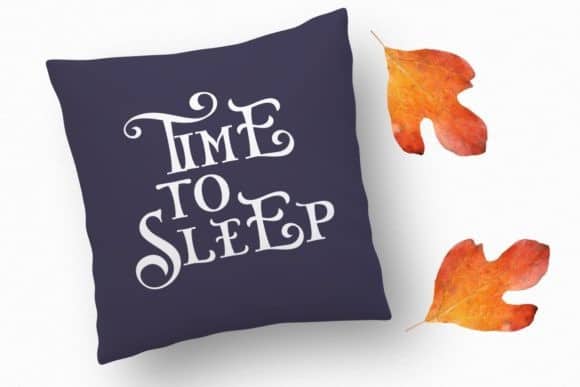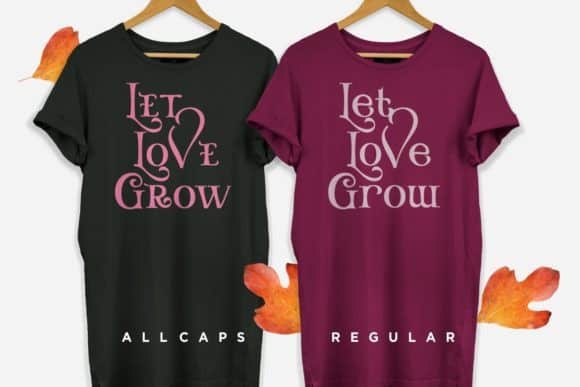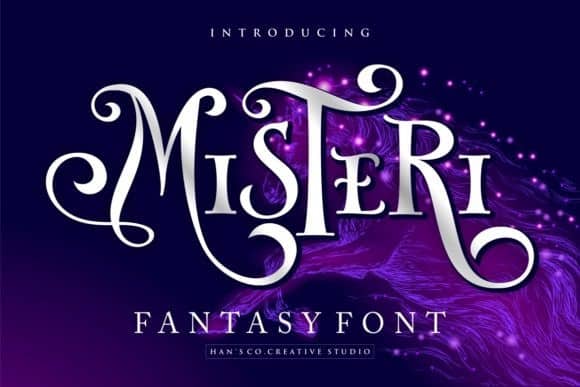
Misteri Display Font
Misteri Display Font is a Bold Display Serif font. It’s designed and shared by HansCo. A gorgeous and elegant display font with an incredibly delicate feel. It features gorgeous and mysterious swashes and ligatures that make this script incredibly versatile. Whether you’re looking for fonts for Instagram, calligraphy scripts, or magic- or wizard-themed projects, It will turn any creative idea into a true piece of art!